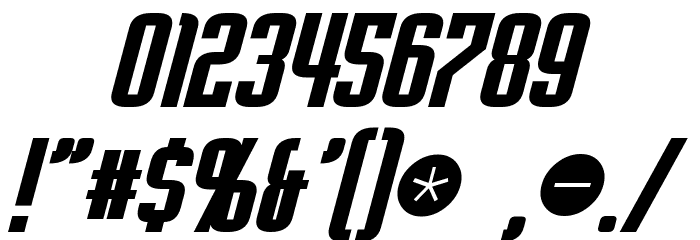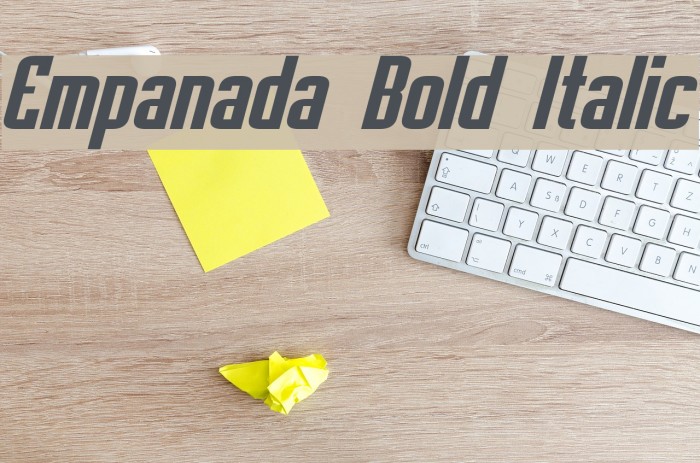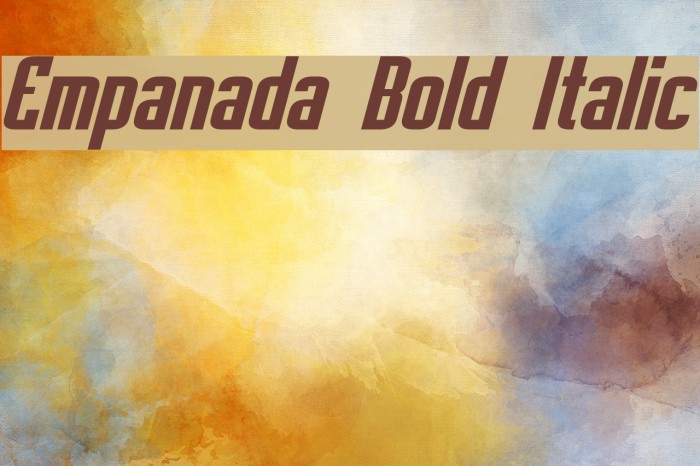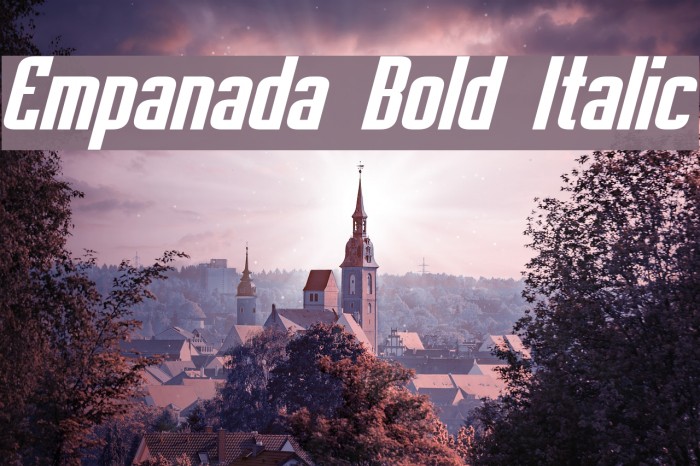
Empanada Bold Italic Font
This font features a bold and italicized style with a modern, dynamic appearance. The characters are slightly condensed, giving it a sleek and streamlined look. The strokes are thick and consistent, providing a strong visual impact. The italic slant adds a sense of motion and energy, making it suitable for attention-grabbing headlines or titles. The uppercase and lowercase letters maintain a uniform style, while the numerals and special characters are designed to match the overall aesthetic. The font's boldness and italic nature make it stand out, while its condensed form ensures it remains readable even in smaller sizes.
A bold, italicized font with a modern, dynamic, and slightly condensed style.
- Proposed Projects: Ideal for branding, advertising, posters, and any project requiring a strong, modern typeface.